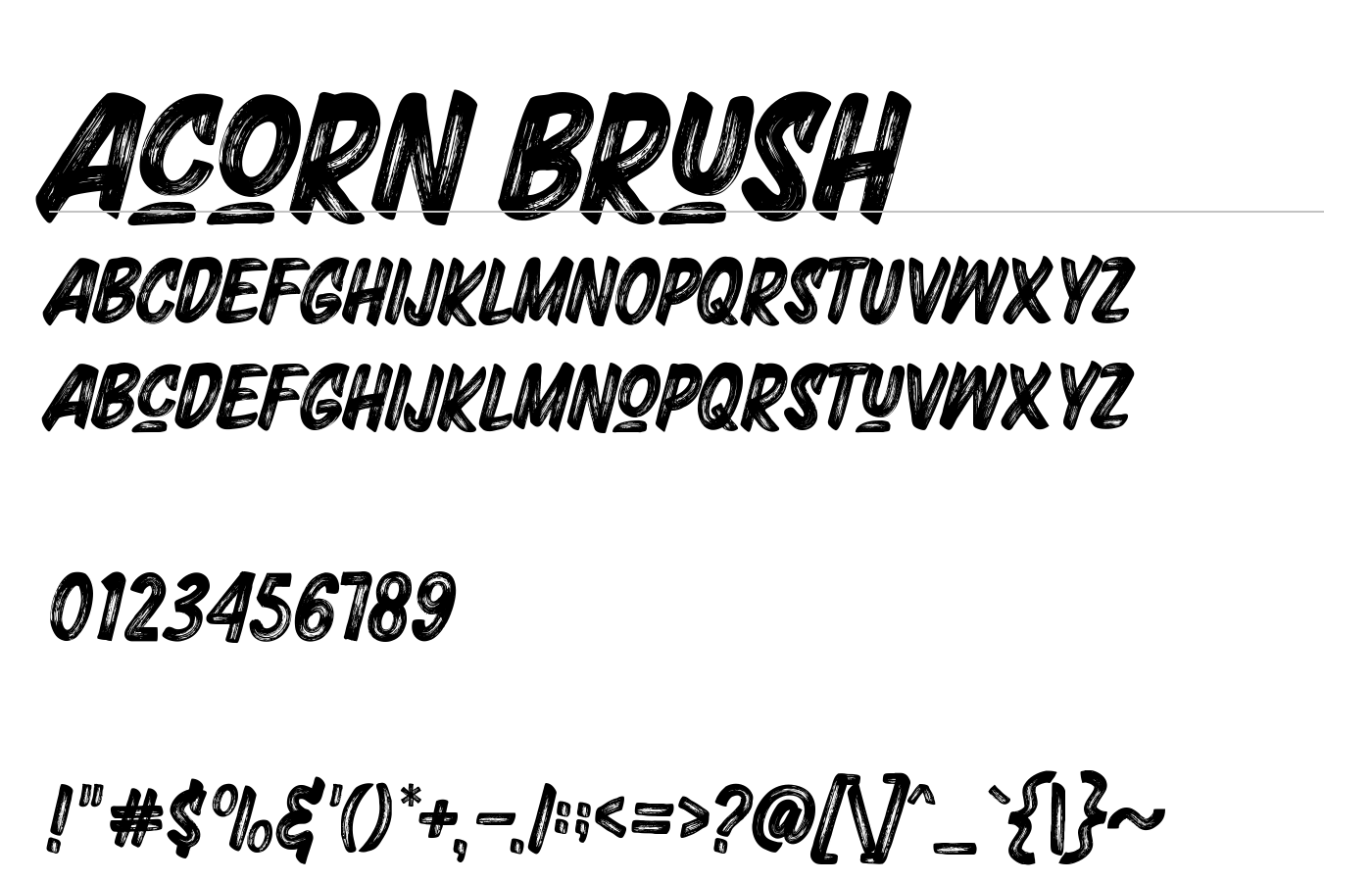
Acorn Brush is a bold, hand-drawn brush font that brings energy and a playful, artistic vibe to any design. Its lively strokes and textured appearance make it perfect for casual, creative projects like posters, logos, and packaging where a dynamic, handcrafted feel is desired. This font works especially well in headline use to grab attention with its expressive and approachable style.
Acorn Brush Font
About Acorn Brush Font